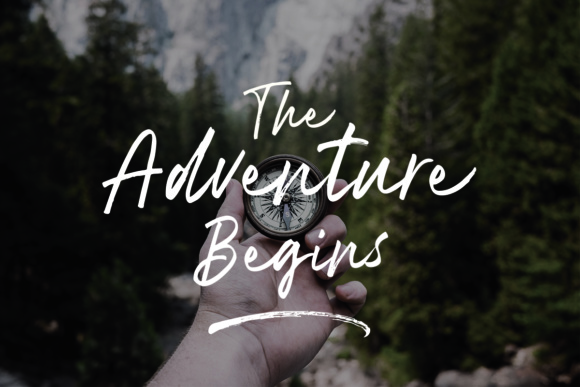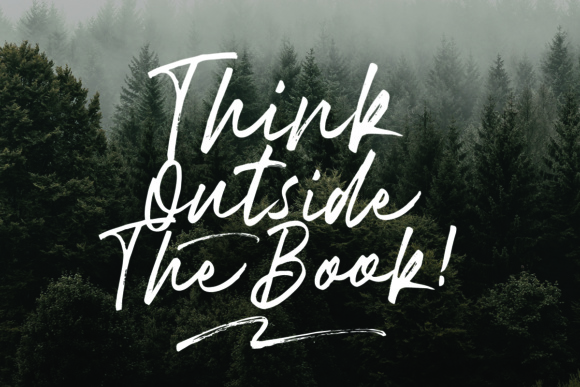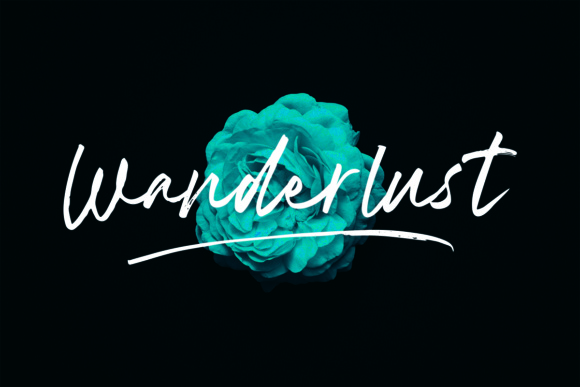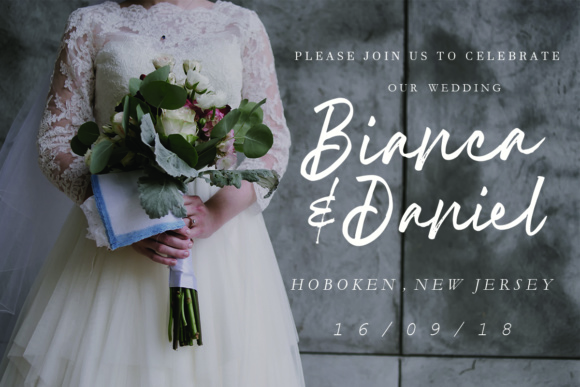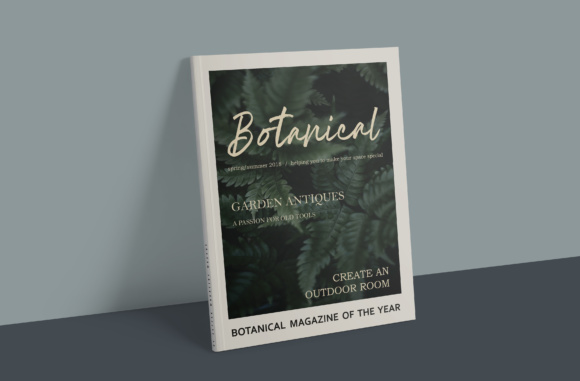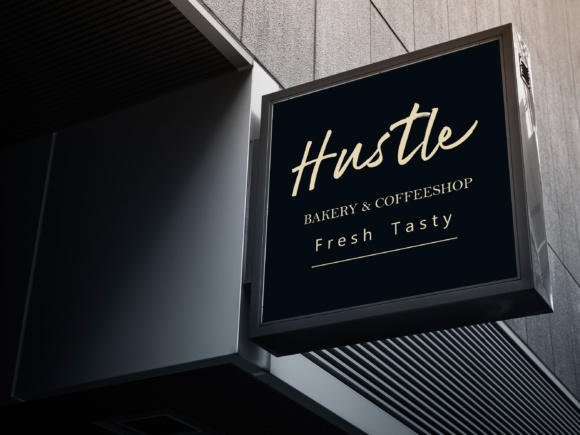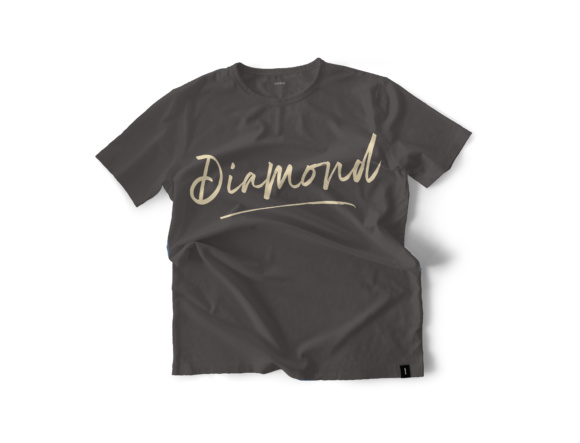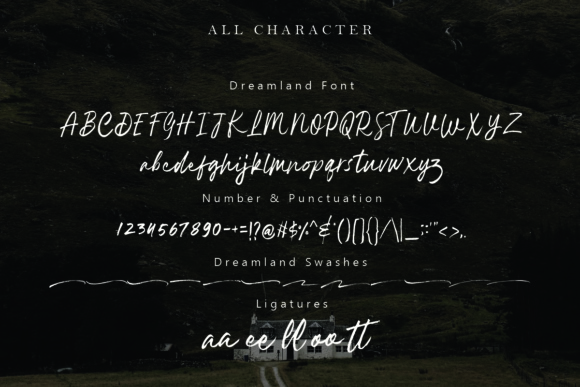
Dreamland Font
About Dreamland Font
The Dreamland is a typeface that was made directly by hand. It’s designed to be combined perfectly and allows you to make the perfect handwriting design.